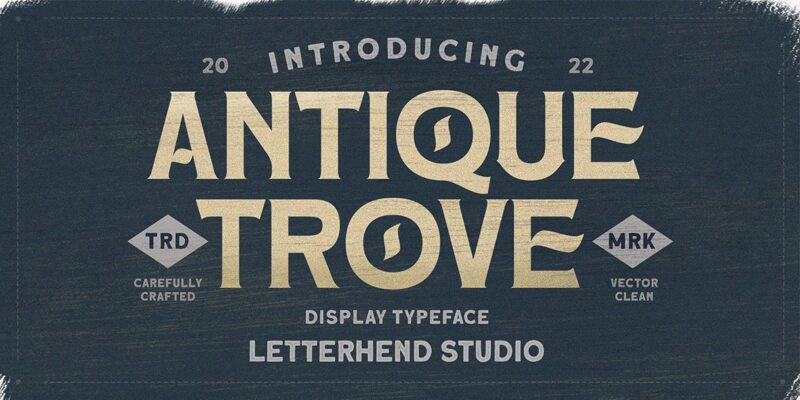
Antique Trove, crafted by the renowned Letterhend Studio, stands as a quintessential display font embodying the elegance of yesteryear with a modern twist. Its semi-bold weight exudes confidence, while the retro styling harkens back to an era of timeless design. The artistry behind Antique Trove is evident in each character, boasting unique curves and sharp serifs that command attention and create an impactful visual hierarchy.
The font's aesthetic charm lies in its ability to marry classic appeal with contemporary readability, making it an ideal choice for designers looking to inject sophistication and nostalgia into their work. Antique Trove shines in various creative applications, from branding projects that require a touch of class to editorial designs longing for that retro flair. This fusion of old-world charm and modern-day finesse ensures that Antique Trove will leave a lasting impression wherever it’s used.